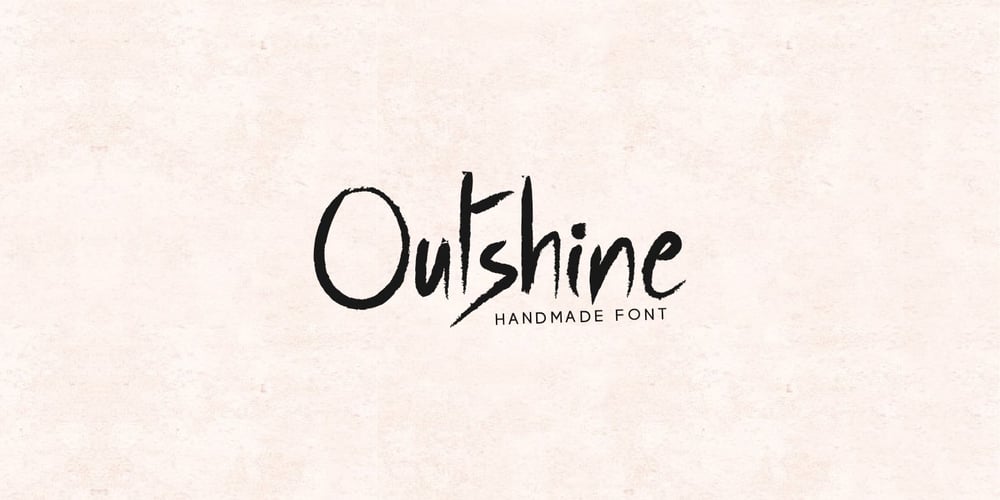
Outshine Script Font Family was designed by Lisha Joseph and published by Designova. Outshine Script contains 1 styles and family package options. Outshine! A lovingly created, beautiful handwritten font with a special feel of it’s own. Made with custom brushes, crafted with perfection and finest aesthetics, purely dedicated to branding and logo design projects. Performed extended kerning to make sure the font looks amazing on all possible letter combinations.Outshine includes full set of uppercase and lowercase letters, symbols, numerals and punctuation. The font has a unique wet brush texture, so would be perfect for all types of design projects.